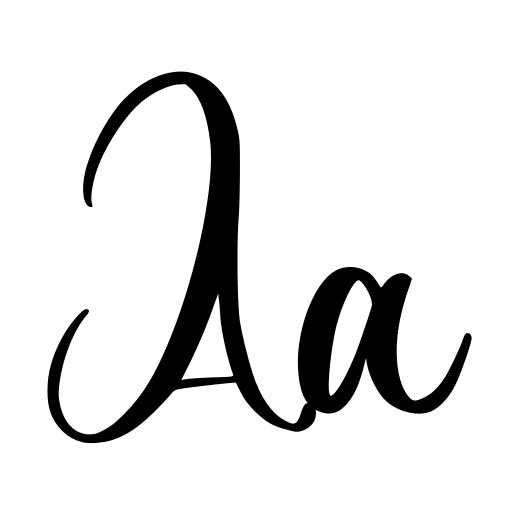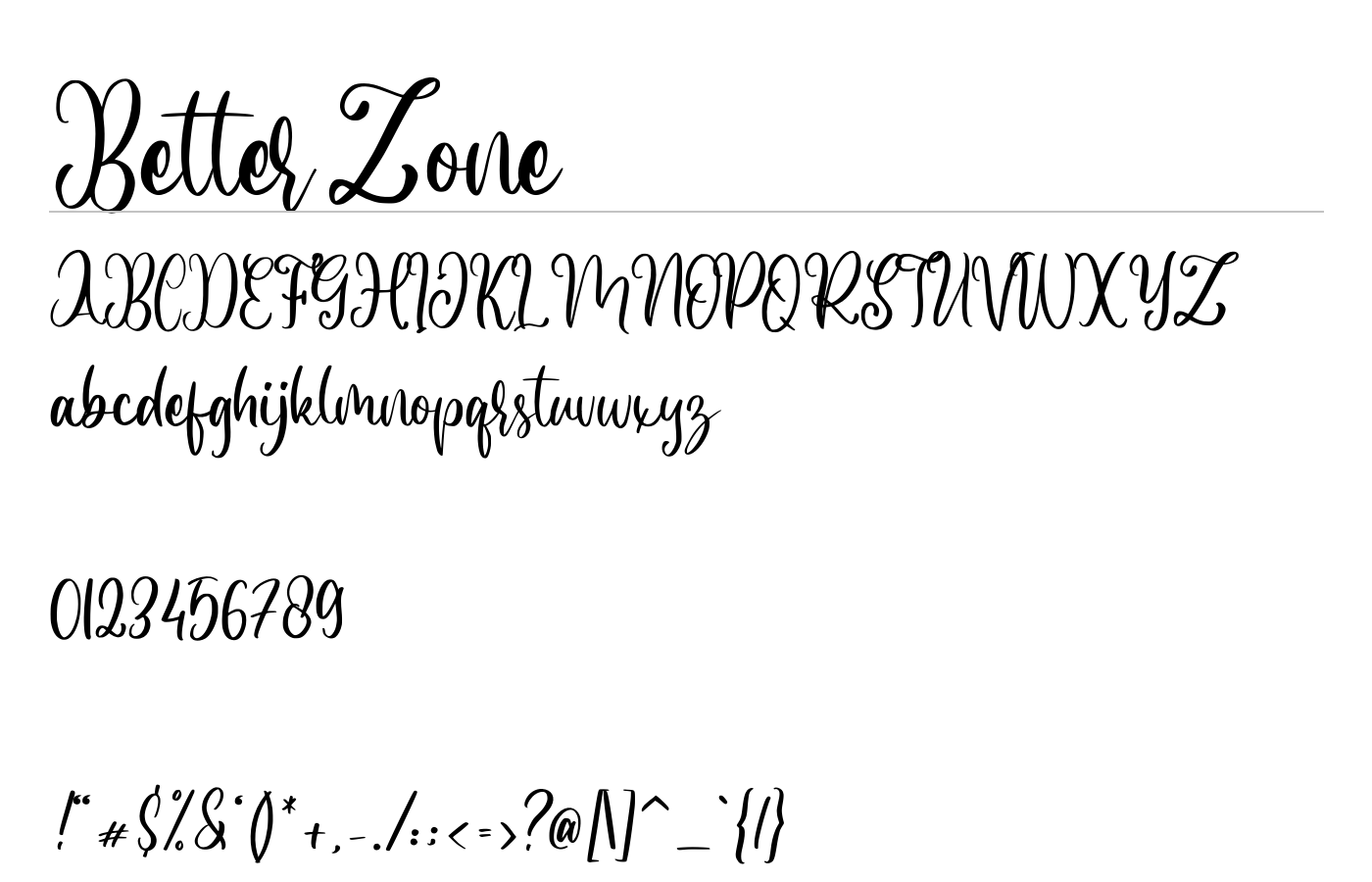
Better Zone is a decorative script font with a lively, hand-drawn feel featuring flowing, slender letterforms and playful, looping strokes. Its light weight and elegant curves make it perfect for adding a personal and artistic touch to branding, invitations, and creative headlines where charm and individuality are key. This font brings a sense of warmth and creativity, ideal for projects aiming for a stylish yet approachable vibe.
Better Zone Font